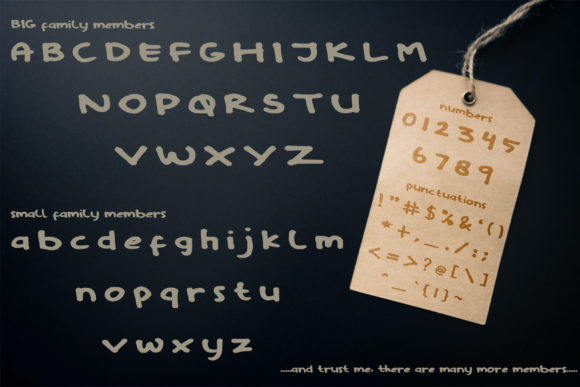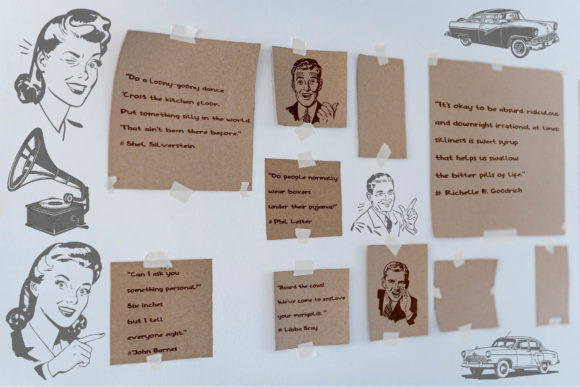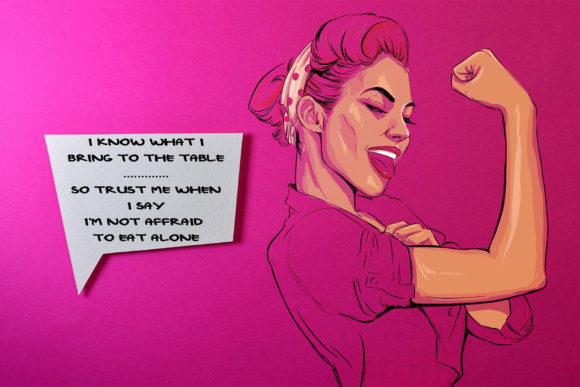
Bongkerspop Font: The Ultimate Choice for Fun and Playful Designs
In the world of typography, fonts play a crucial role in conveying the tone and personality of a design. When it comes to creating visually appealing and engaging content, the right font can make all the difference. Bongkerspop font is a cute display font that has gained popularity among designers and crafters for its readability, friendliness, and fun vibe. In this article, we’ll dive into the features and benefits of Bongkerspop font, and explore its various uses in design.
What is Bongkerspop Font?
Bongkerspop font is a display font designed to add a touch of playfulness and beauty to any design. Its cute and friendly appearance makes it an excellent choice for cartoon-related designs, children’s games, quotes, titles, brand names, book covers, posters, and more. The font’s unique style is characterized by its rounded edges, soft curves, and approachable feel, making it perfect for designs that require a touch of whimsy.
Key Features of Bongkerspop Font
- Readability: Bongkerspop font is designed to be highly readable, even at smaller sizes. Its clear and distinct letterforms ensure that your message gets across effectively.
- Friendliness: The font’s friendly appearance makes it perfect for designs that require a personal touch. It’s ideal for children’s books, games, and educational materials.
- Fun: Bongkerspop font is all about having fun. Its playful style is sure to add a smile to your audience’s faces, making it perfect for designs that require a touch of humor.
- Versatility: This font is incredibly versatile and can be used for a wide range of design projects, from digital content to print materials.
Uses of Bongkerspop Font
Bongkerspop font is an excellent choice for various design projects, including:
- Cartoon-related designs: The font’s playful style is perfect for cartoon characters, comics, and animations.
- Children’s games and educational materials: Bongkerspop font is ideal for creating engaging and interactive content for kids.
- Quotes and titles: The font’s unique style makes it perfect for creating eye-catching quotes and titles for social media, posters, and flyers.
- Brand names and logos: Bongkerspop font can add a touch of personality to your brand’s identity, making it more approachable and memorable.
- Book covers and posters: The font’s readability and friendliness make it an excellent choice for book covers, posters, and other print materials.
Benefits of Using Bongkerspop Font
Using Bongkerspop font in your designs offers several benefits, including:
- Unique style: Bongkerspop font offers a unique and distinctive style that sets it apart from other fonts.
- Emotional connection: The font’s friendly and playful appearance helps create an emotional connection with your audience.
- Versatility: Bongkerspop font can be used for a wide range of design projects, making it a valuable addition to your font library.
- Easy to read: The font’s high readability ensures that your message gets across effectively, even at smaller sizes.
Tips for Using Bongkerspop Font
To get the most out of Bongkerspop font, follow these tips:
- Use it for headlines and titles: Bongkerspop font is perfect for creating eye-catching headlines and titles.
- Pair it with other fonts: Experiment with pairing Bongkerspop font with other fonts to create a unique and visually appealing design.
- Adjust font size and color: Adjust the font size and color to suit your design requirements and ensure maximum readability.
- Experiment with different styles: Bongkerspop font comes in different styles and weights. Experiment with them to find the one that works best for your design.
| Font Name | Bongkerspop Font |
Bongkerspop font is a versatile and fun display font that’s perfect for designers and crafters looking to add a touch of playfulness and beauty to their designs. Its readability, friendliness, and unique style make it an excellent choice for various design projects, from cartoon-related designs to book covers and posters. With its numerous benefits and uses, Bongkerspop font is sure to become a valuable addition to your font library.